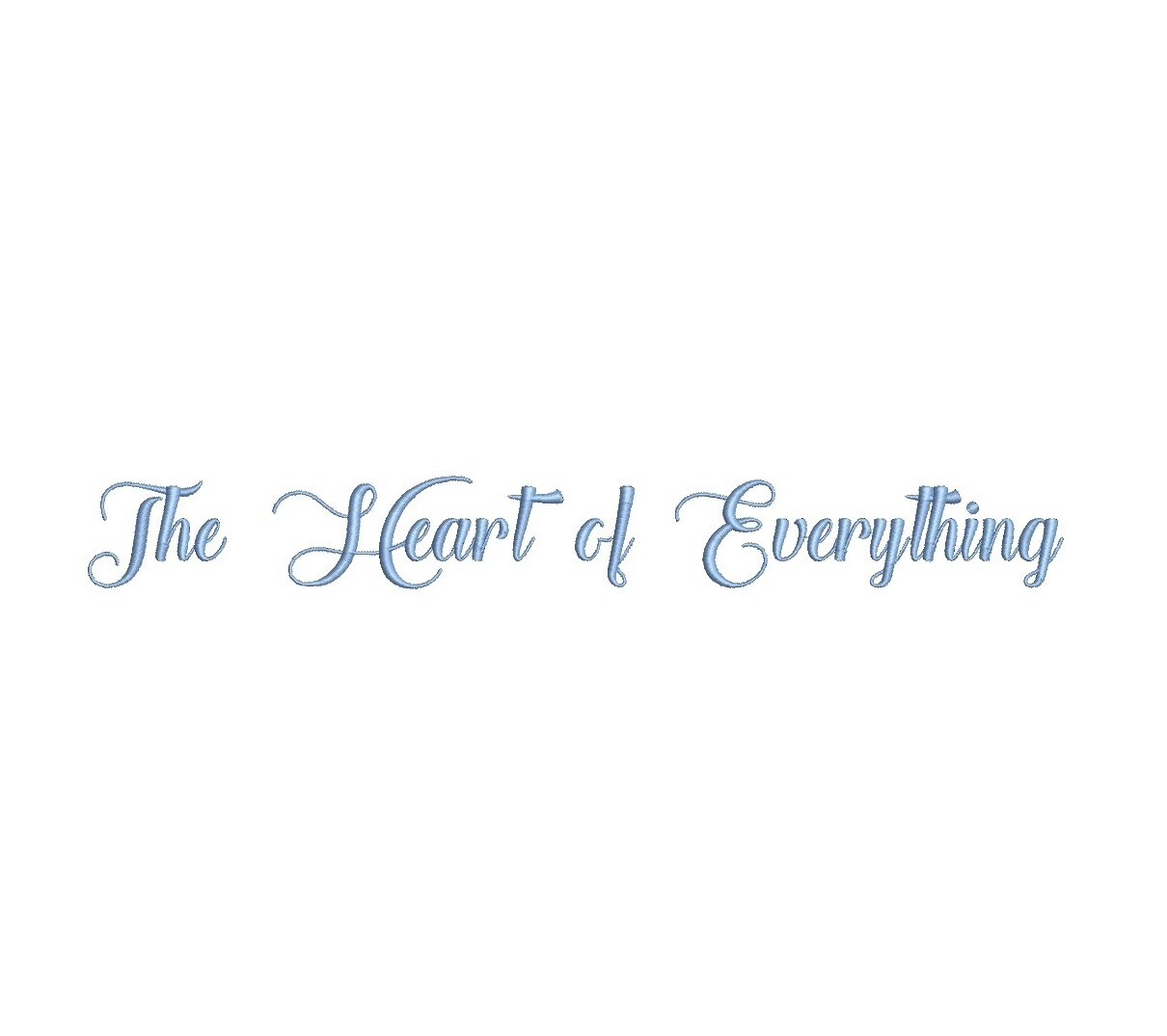
Experience the heartwarming charm of 'The Heart of Everything Regular ESA' font, tailored for embroidery enthusiasts seeking sentimental and meaningful designs. This enchanting typeface captures the essence of love and connection, infusing your creations with heartfelt emotions. Seamlessly compatible with Wilcom Studio e4.5.6 and Hatch 3 versions and above, it effortlessly integrates into your digitizing workflow. Its elegant curves and delicate strokes ensure impeccable stitch quality, elevating your embroidery projects to a level of profound expression. Ideal for touching monograms, quotes, and decorative elements, this ESA font sparks creativity and guarantees a masterpiece that touches the heart of everything. Embrace the love with 'The Heart of Everything Regular ESA' font today!